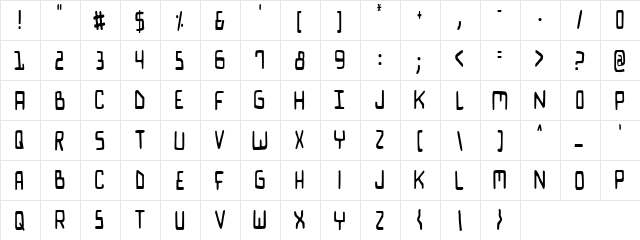
Bionic Comic Condensed Condensed
Design Context for Bionic Comic Condensed Typeface
Bionic Comic Condensed trades formality for fun, with bouncy, characterful letterforms that bring warmth and energy to any project.
Font Pairing: Pairs well with a rounded or humanist sans for body copy, maintaining the friendly tone without relying on Bionic Comic Condensed to carry extended reading.
Pro Tip: Use Bionic Comic Condensed at larger display sizes where its expressive character can land. Pair with a clean, simple sans for body copy to maintain readability.